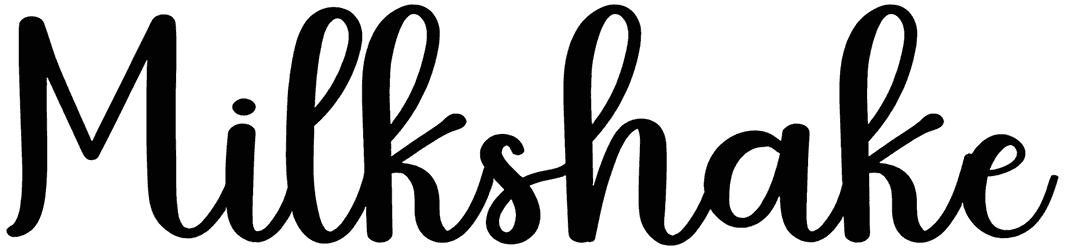
Milkshake Font
Right, get kicked out of achieving this cursive font with a friendly vibe before anyone else utilizes it. Here, thanks to RB, Milkshake, a script font with soft curly lettering, is used to accentuate your graphical presentations.